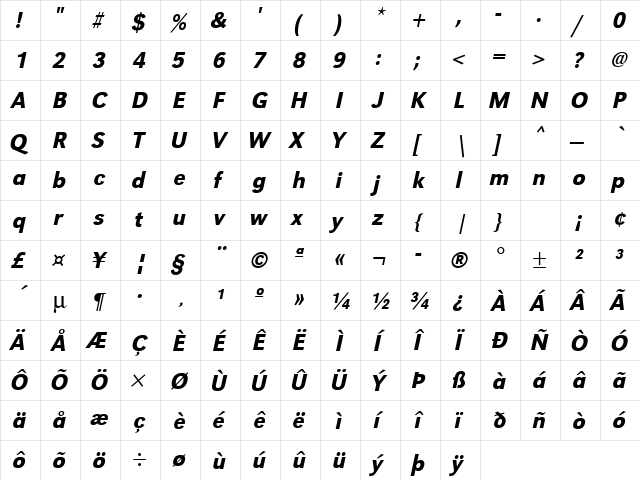
URWGroteskTMedNar Oblique Font Preview
URWGroteskTMedNar Oblique
Design Context for URWGroteskTMedNar Typeface
URWGroteskTMedNar takes a clean, functional approach — its unadorned letterforms prioritise legibility and work reliably across screen and print environments. The dynamic lean of this cut emphasises speed and emphasis in any layout.
Font Pairing: Works well alongside a characterful serif or display font that can carry the expressive load while URWGroteskTMedNar handles the functional copy.
Pro Tip: Use URWGroteskTMedNar for UI labels, navigation, and short-form body copy where clean legibility is the priority.